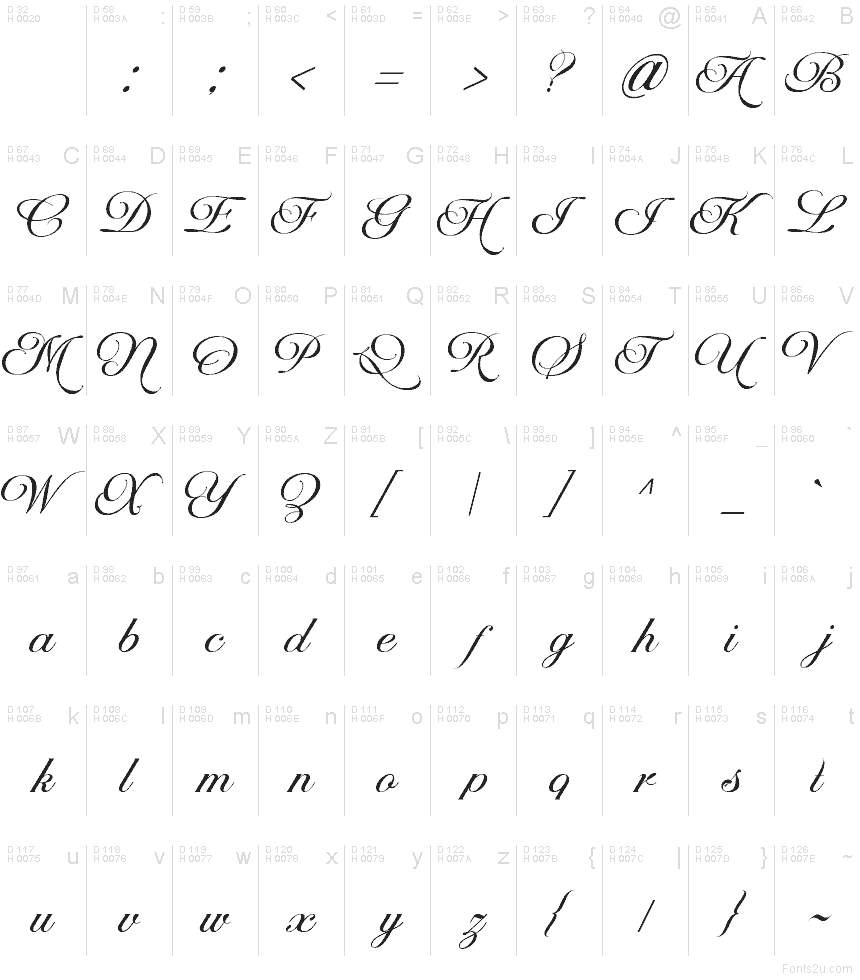
Orliet Pro Script
Orliet Pro Script font is a calligraphy style font designed by Joko Setiono. Elegant, ornate, and sophisticated, it has an expressive romantic aura with a flowing style that stands out. It’s available in regular and italic styles with both versions exceptionally beautiful.
The free calligraphy font is a great choice for decorations of invitations, thank you cards, certificates, and notebook covers. Poster titles of movies or plays can also benefit from such a nice typeface as well as book covers or music album covers.